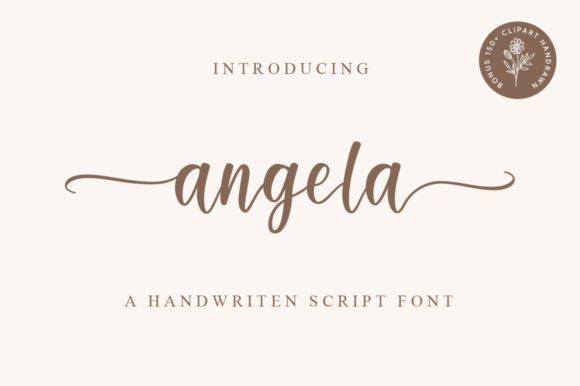
The Magic of Angela Font: Elevate Your Designs with Elegance
I’ll never forget the time I was working on a wedding invitation project, and my client asked for a font that would make their special day feel like a fairytale. I scoured the internet, trying out font after font, but nothing seemed quite right. That was until I stumbled upon Angela Font. With its dainty and flowing script, it was like the perfect match had finally been found. In this article, I’ll share my experience with Angela Font, and show you can use it to add a touch of romance and elegance to your designs.
An Honest Review of Angela Font
So, what makes Angela Font so special? Let’s dive into the good stuff first! 😊
- ✨ Romantic and Lovely: Angela Font has a unique, elegant feel that’s perfect for love letters, wedding invitations, and other designs where you want to make a beautiful impression.
- 💫 Versatile: Whether you’re working on a digital project or a print design, Angela Font adapts beautifully to different contexts.
Of course, no font is perfect, and Angela Font has a few small quirks:
- 🤔 Legibility at Small Sizes: While Angela Font looks stunning at larger sizes, it can get a bit tricky to read at smaller sizes. Make sure to test it out before finalizing your design.
- ⚠️ Overuse of Swashes: With so many beautiful swashes to choose from, it’s easy to get carried away. Remember to balance them out to avoid overwhelming your design.
The Story Behind Angela Font
While the true story behind Angela Font might be a mystery, it’s easy to imagine that it was created with love and a passion for beautiful typography. Perhaps the designer, inspired by classic calligraphy and elegant scripts, set out to create a font that would make any design feel special. Whatever the inspiration, Angela Font has undoubtedly become a favorite among designers and crafters.